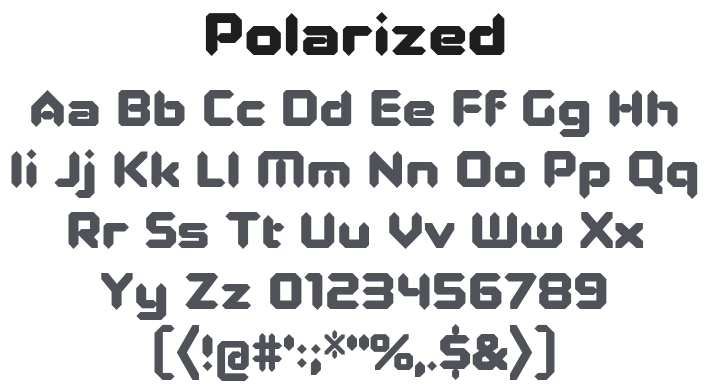
Polarized Font Family
About Polarized
Polarized draws inspiration from the clean geometry of LCD readouts, reworked for modern typography. Its pointed stroke joins trim away excess weight where lines meet, keeping the letters crisp and evenly balanced. Squarish proportions and subtly softened corners give it a technical voice without feeling cold or mechanical. Well suited to tech branding, gaming titles, packaging, and futuristic interfaces, Polarized delivers clear, confident typography with a distinctly engineered edge.